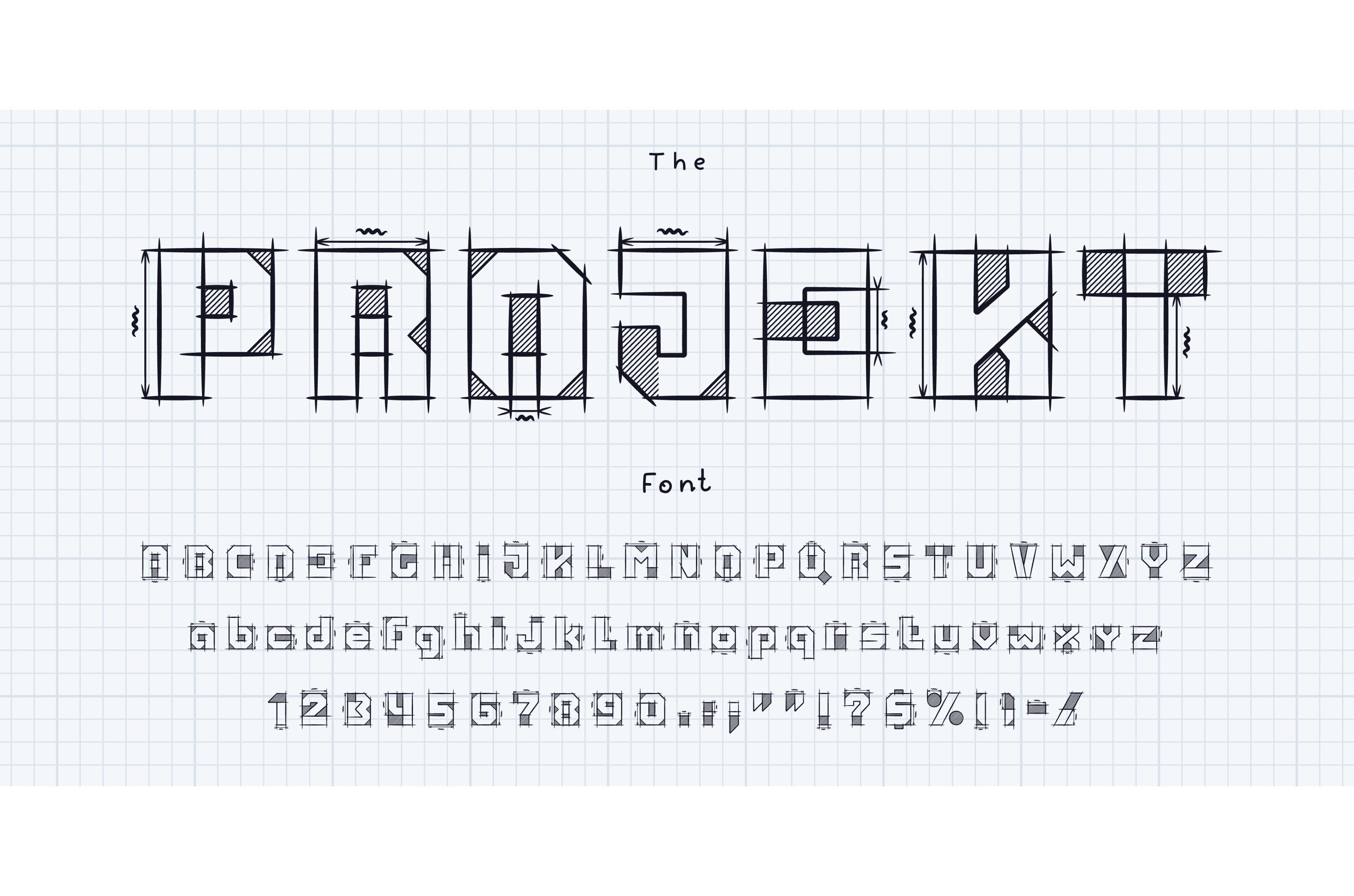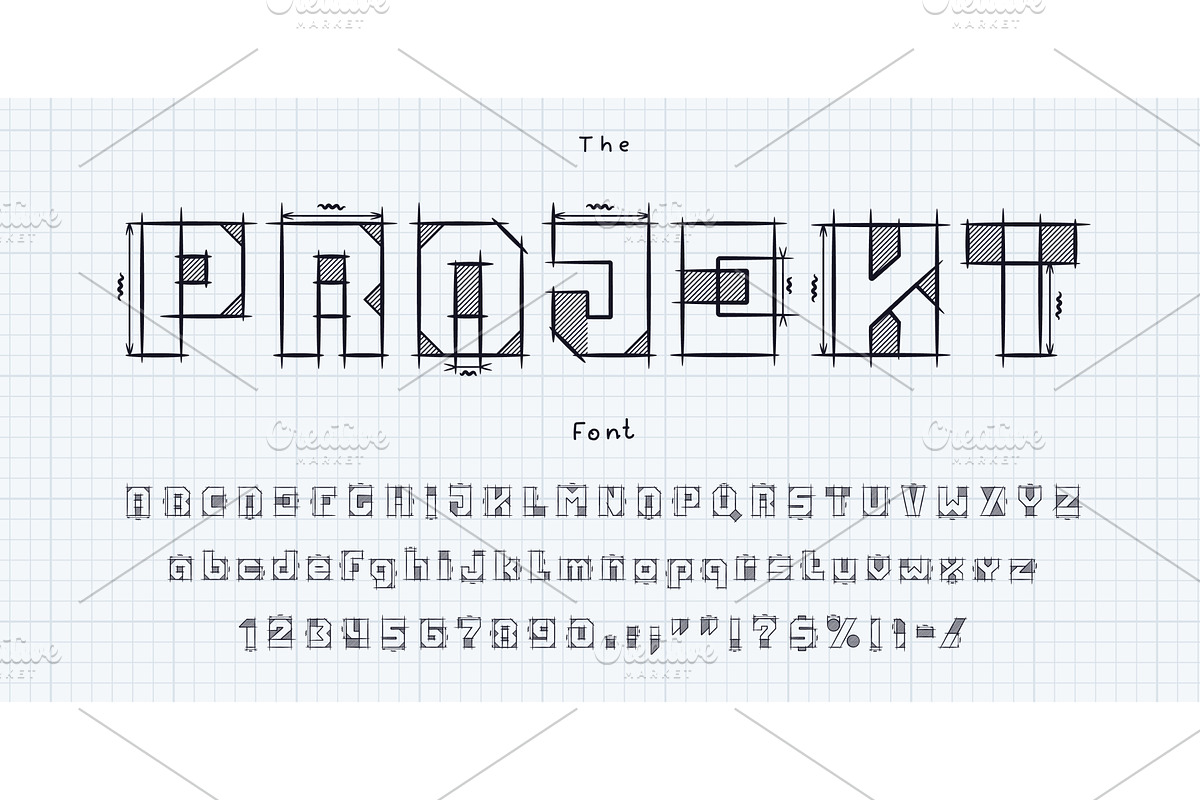
Architect font, technical type
Architect font, technical type, sketch engineer typeface. Vector construction English alphabet, blueprint typography letters, numbers and sign characters with architecture drafting lines on grid paper